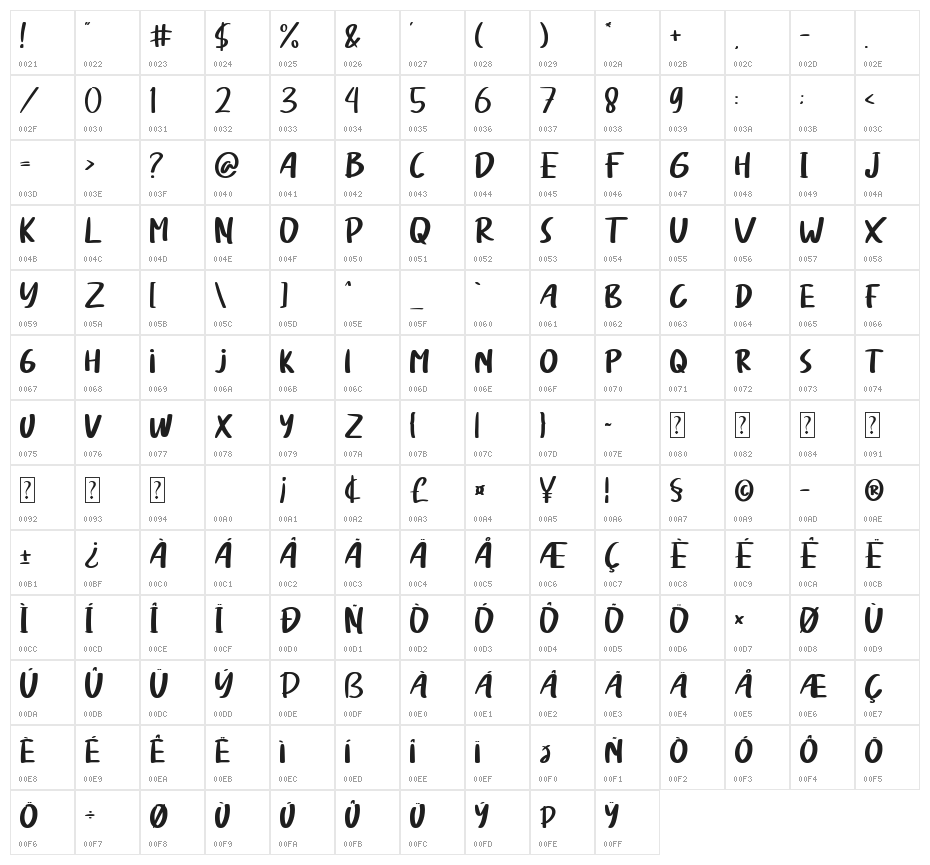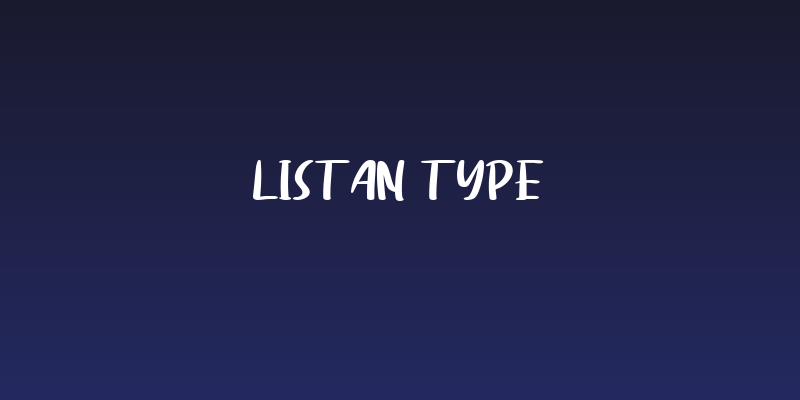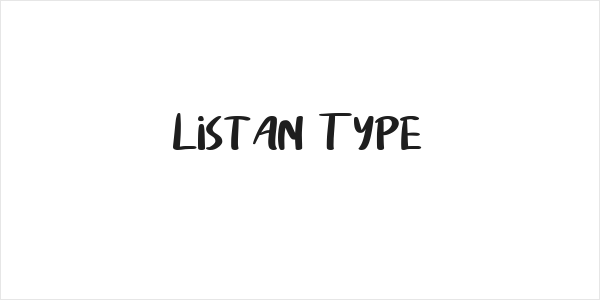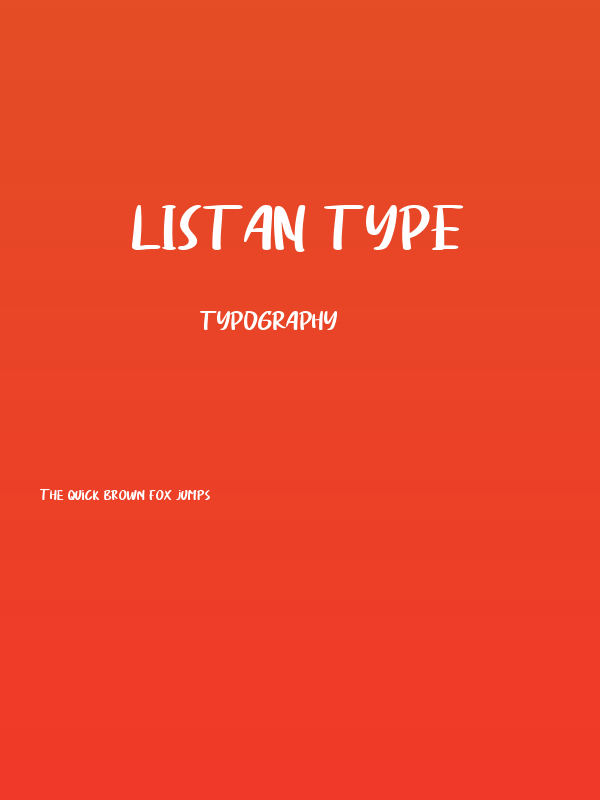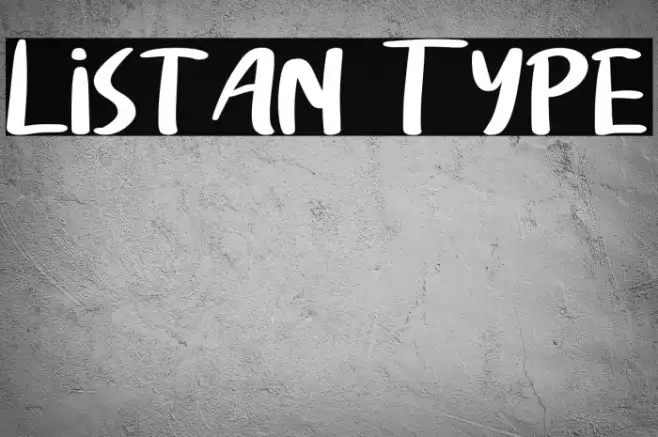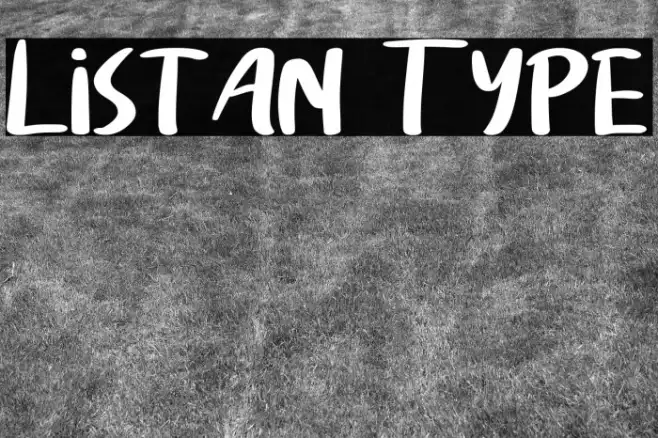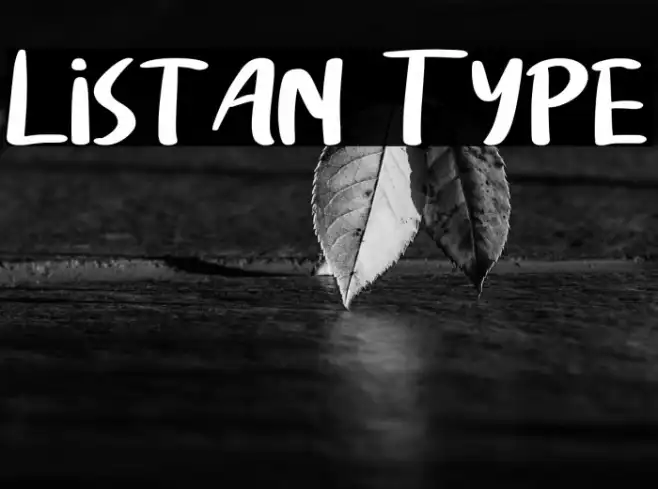
Listan Type Font
Listan Type Description
This font features a bold and expressive handwritten style, characterized by its fluid and dynamic strokes. The letters have a playful and informal appearance, with a slight slant that adds to its casual charm. The uppercase and lowercase letters maintain a consistent style, with rounded edges and varying stroke widths that give it a lively and energetic feel. The numerals and special characters are crafted to match the overall aesthetic, ensuring a cohesive look across all text elements. This font is perfect for projects that require a personal touch or a friendly, approachable vibe.
| Use Case | Headlines, Logos, Social Media Graphics |
| Proposed Projects | Ideal for greeting cards, invitations, social media graphics, and branding projects that require a personal touch. |